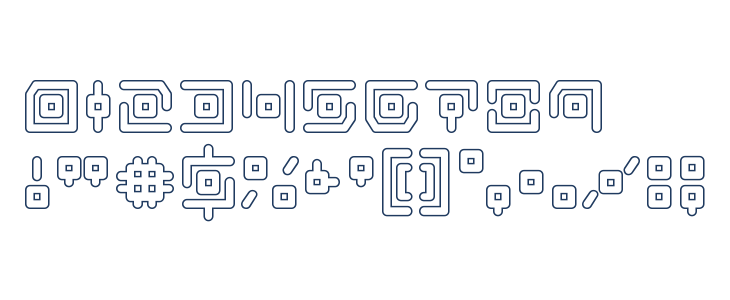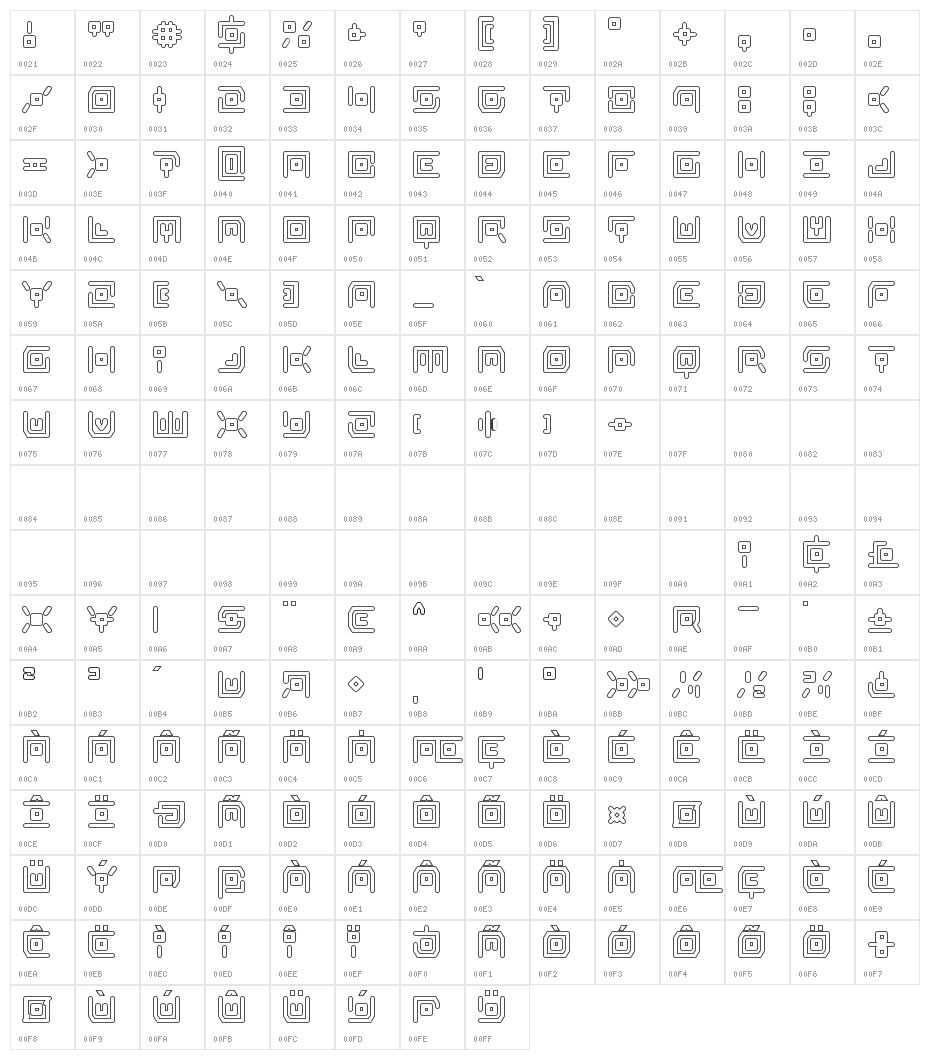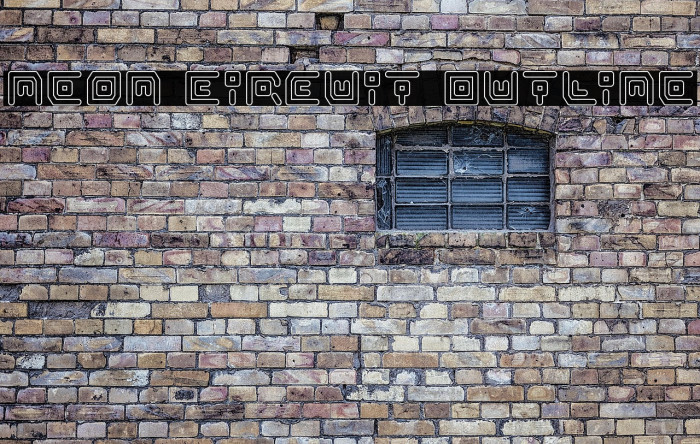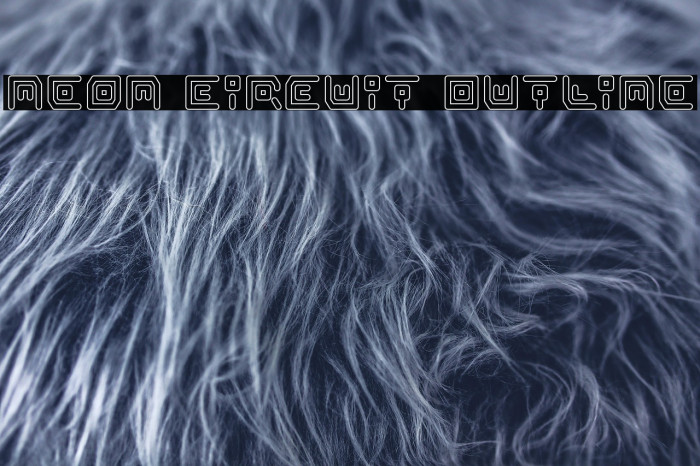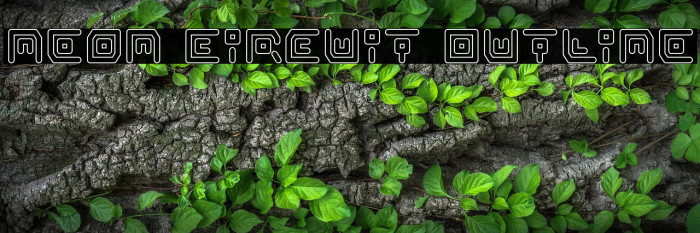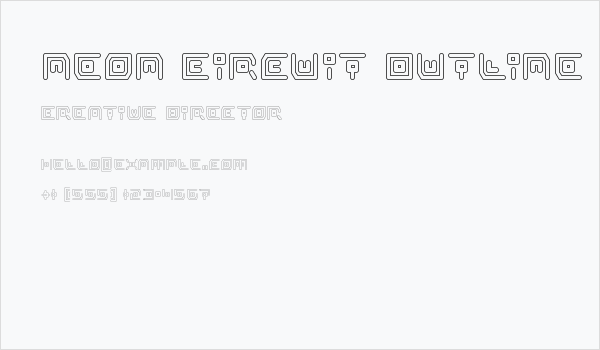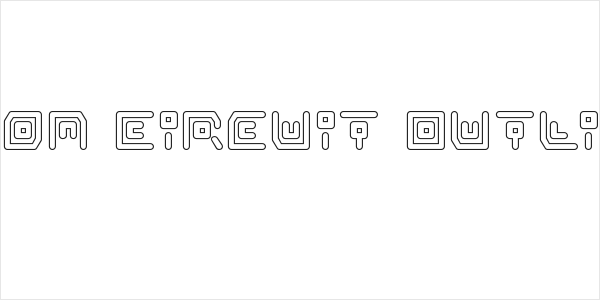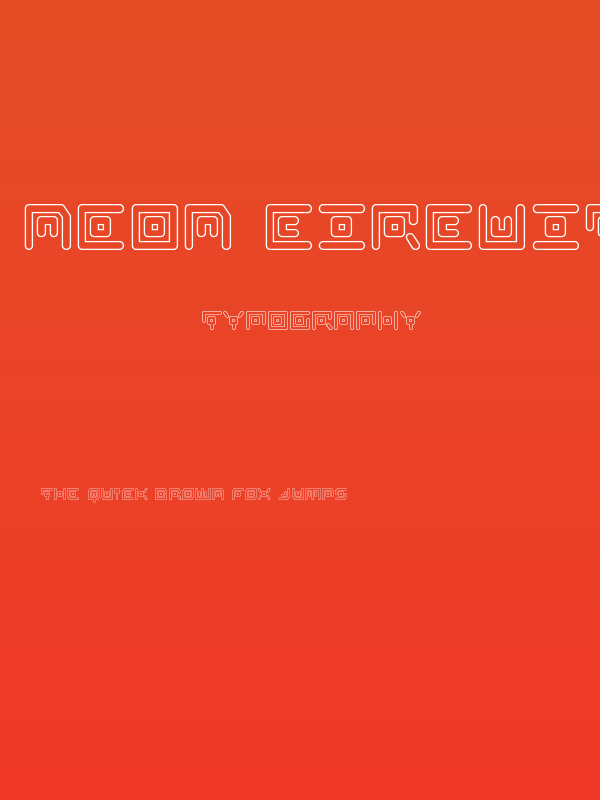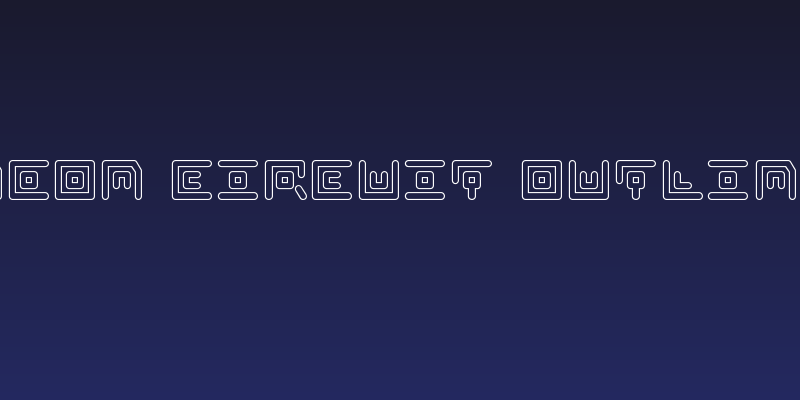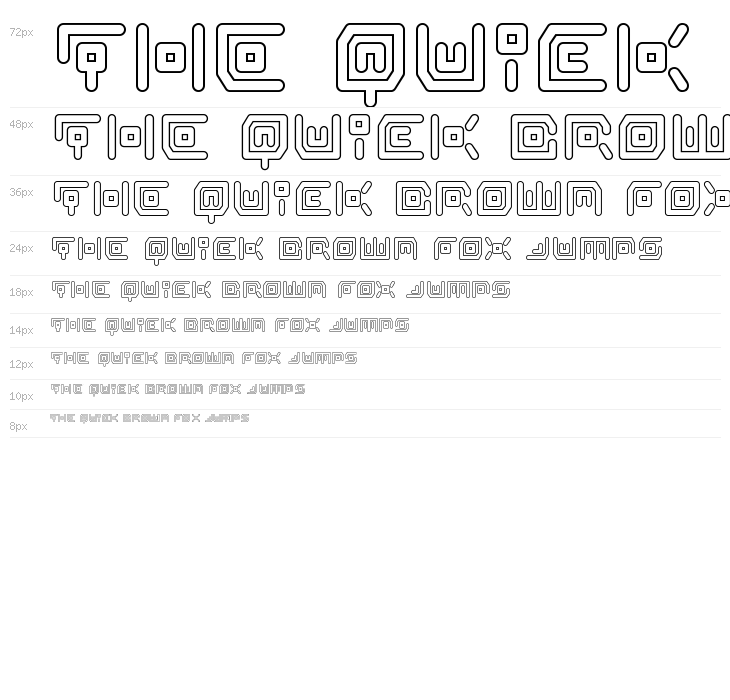
Neon Circuit Outline Font
Neon Circuit Outline Description
This font features a futuristic and digital aesthetic, characterized by its outline style that mimics the look of neon lights and circuit patterns. Each character is designed with a geometric and angular form, creating a sense of modernity and technological advancement. The lines are uniform in thickness, contributing to a cohesive and structured appearance. The font's unique design makes it stand out, with its intricate patterns and maze-like structures that evoke a sense of complexity and innovation. This style is particularly effective for projects that aim to convey a high-tech or digital theme.
| Proposed Projects | Ideal for tech-related branding, digital art, sci-fi themed projects, and modern advertising campaigns. |